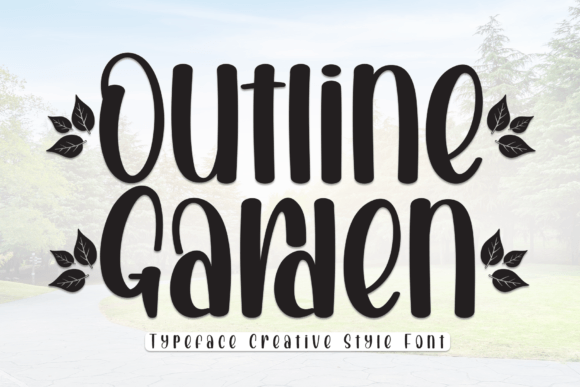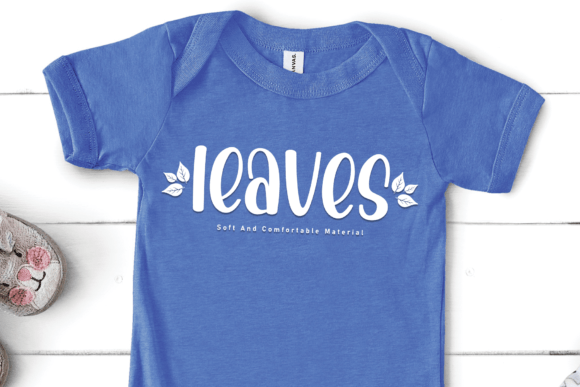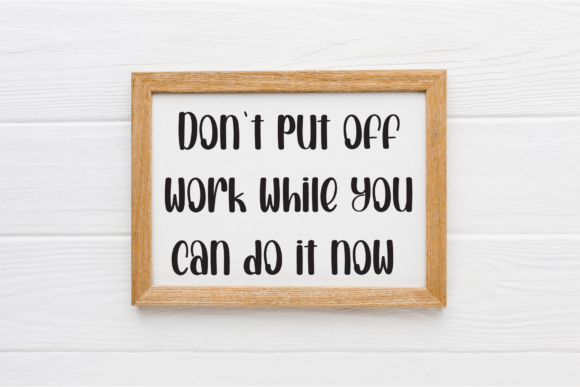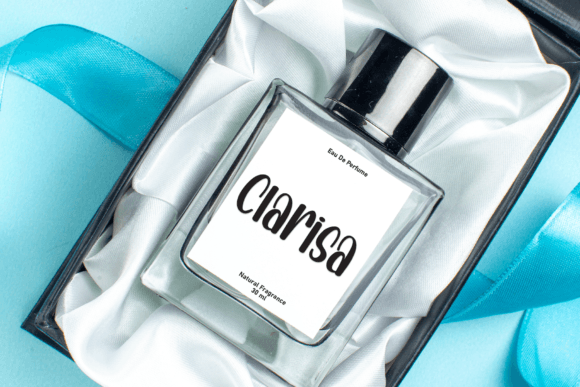
Outline Garden Font: Cute Handwritten Font for Cricut & DIY Projects
About the Outline Garden Font
Unleash your creativity with Outline Garden Font, a versatile font perfect for a wide range of applications. Outline Garden – a stylish handwritten font, exudes sophistication with its gracefully crafted letterforms. The fluid strokes and subtle details lend an air of refined charm, making it ideal for projects that demand a touch of class. Elevate your designs with Outline Garden, where style meets handwritten grace.
Outline Garden’s elegant, yet slightly informal, handwritten style works best for headlines, short text blocks on invitations or greeting cards, and branding elements requiring a touch of sophistication. It’s also well-suited for packaging design where a premium feel is desired. Avoid using it for body copy or lengthy paragraphs; its delicate strokes can become difficult to read in extended use. Similarly, its handcrafted nature makes it less suitable for UI applications.
For optimal pairings, consider pairing Outline Garden with a clean sans-serif like Lato for a modern contrast, or a classic serif such as Garamond for a more traditional feel. A geometric sans-serif like Montserrat can add a contemporary edge. These pairings create visual balance, allowing Outline Garden’s charm to shine without overwhelming the design.
The font’s overall personality is sophisticated yet approachable, lending itself to brands focused on luxury goods, artisanal products, or boutique services. Its slightly informal feel prevents it from being overly stiff or pretentious.